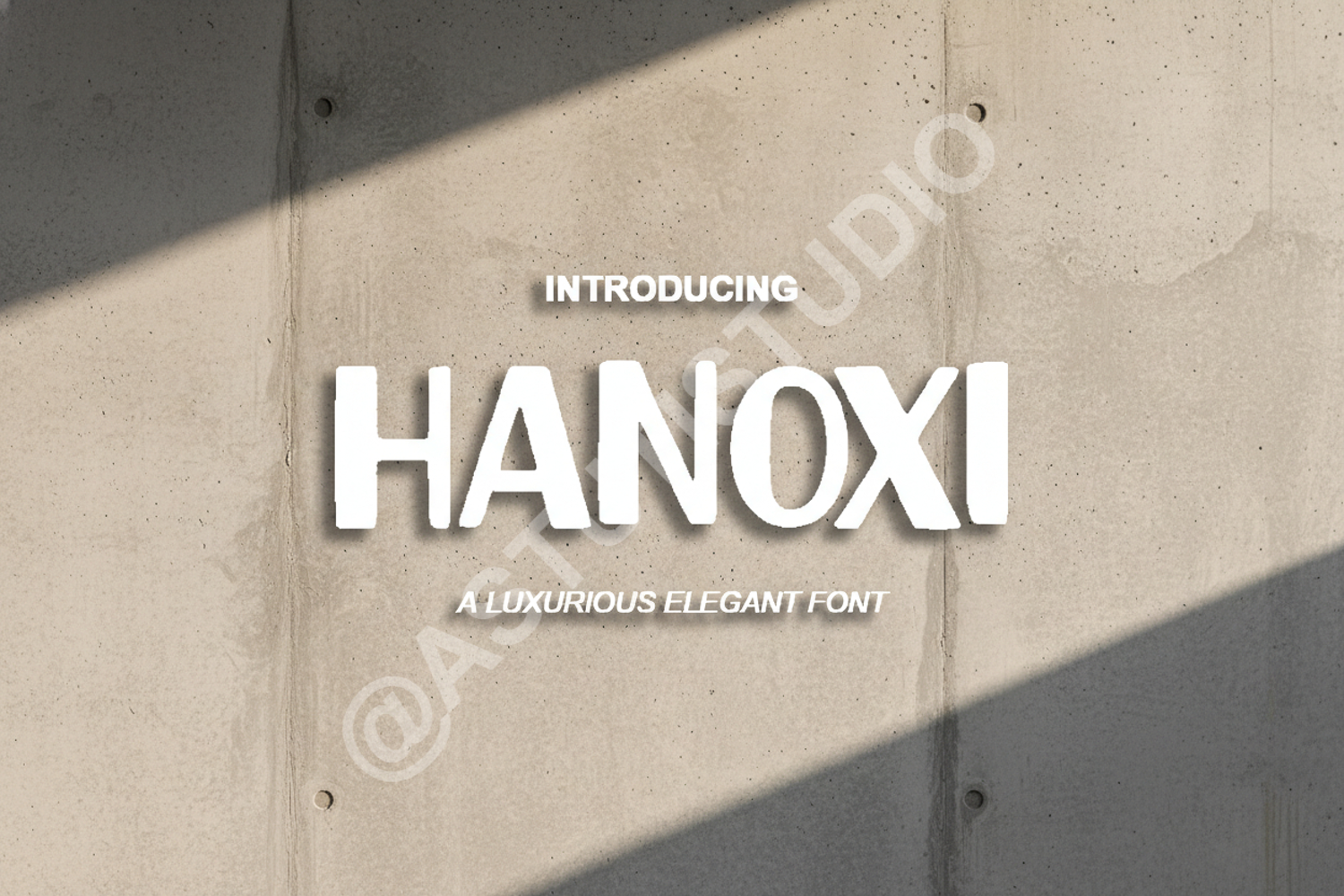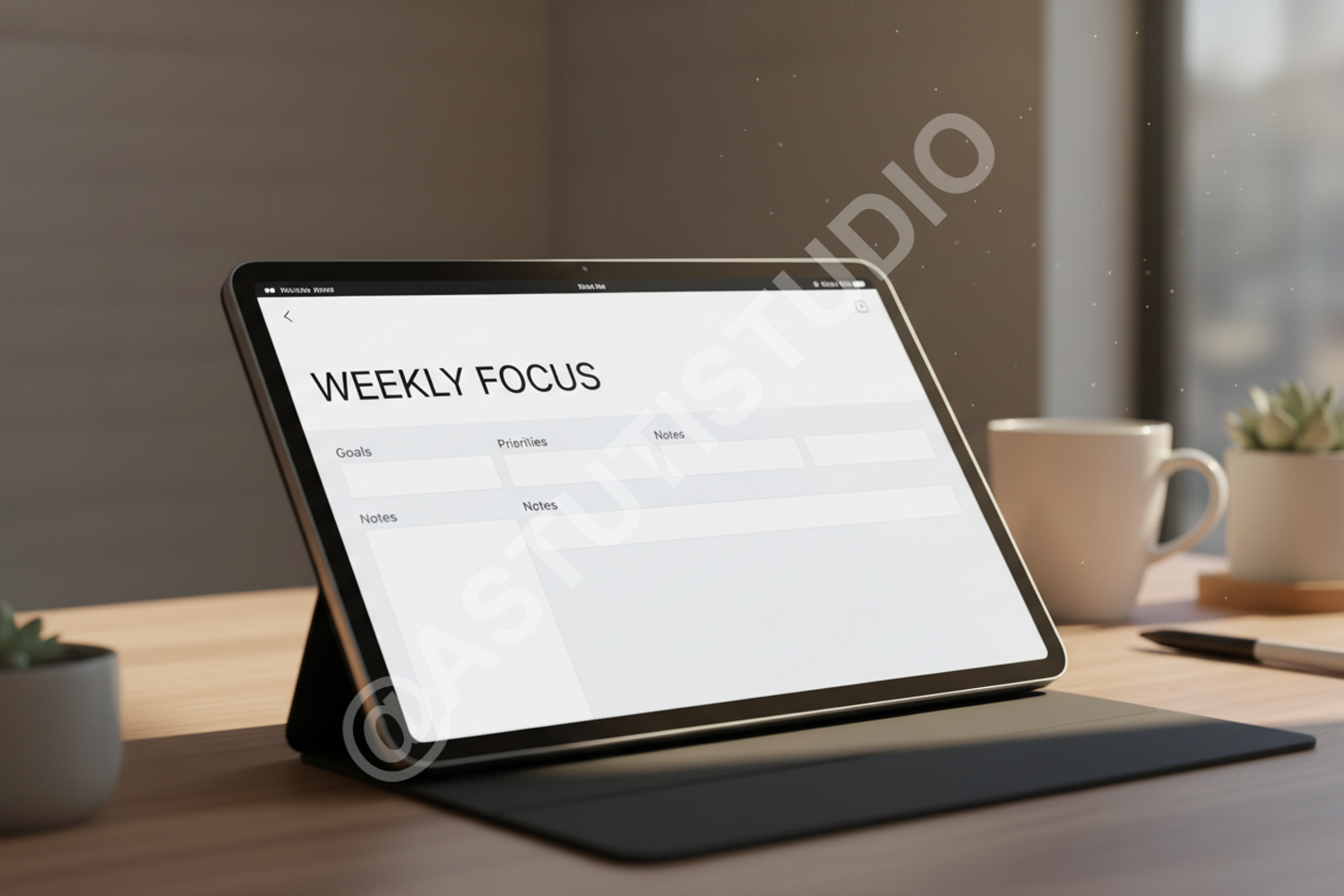
Hanoxi - Elegant and Modern Sans-Serif Display Font
Hanoxi
Elevate your design projects with Hanoxi, a premium sans-serif typeface crafted for high-end aesthetics and maximum versatility. Hanoxi blends clean geometric lines with subtle contemporary details, making it the perfect choice for designers looking to achieve a sophisticated and professional look. Whether you are working on a minimalist brand identity or a bold editorial layout, Hanoxi provides the clarity and style needed to stand out.
- Branding and Identity: Create memorable logos and cohesive brand systems.
- Editorial Design: Perfect for magazine headers, titles, and body text.
- Digital Marketing: Enhance social media graphics and website interfaces.
- Print Media: Ideal for business cards, posters, and luxury packaging.
- Wedding Stationery: Add a touch of modern elegance to invitations and save-the-date cards.